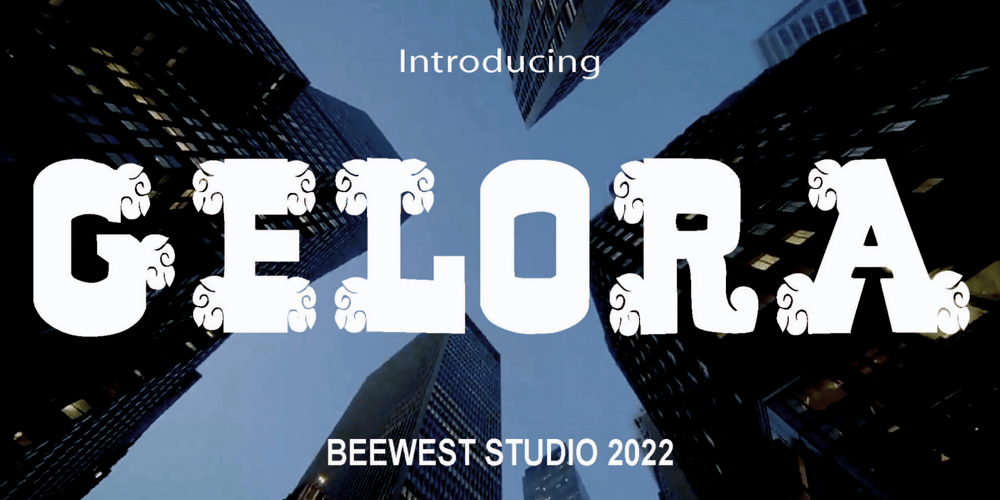
Gelora Font Family was designed by bsmbang wisudyantoro and published by Beewest Studio. Gelora contains 1 styles and family package options. This Gelora font is luxurious and classic engraved that is suitable for any design such as book covers, posters, quote designs, apparel, etc. This font is inspired by a colossal theme from the Roman Empire or something like a Gladiator story, but I found this font also looks suitable for a western cowboy theme.